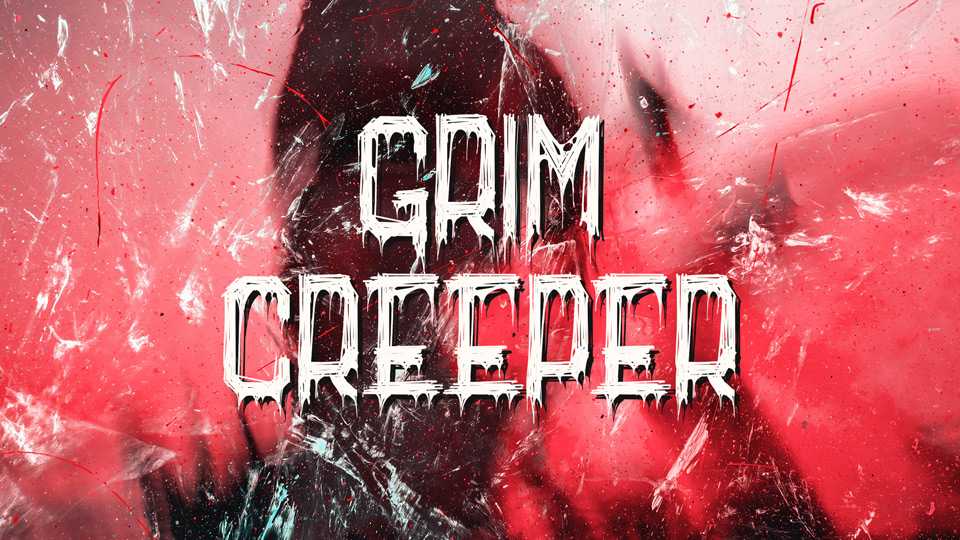
Download Grim Creeper font, a spine-chilling typeface designed with sinister strokes and eerie embellishments, conjuring a sense of dread and the unknown. Grim Creeper font is the ideal choice when you want to infuse your designs with an unsettling and foreboding atmosphere.